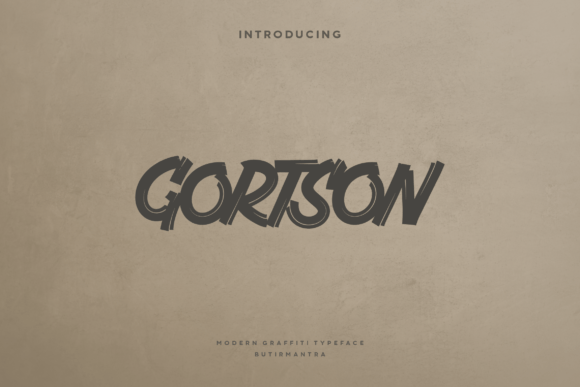
Unleash the captivating charm of Gortson, a script font family that dances off the page with its vibrant urban flair! Inspired by the raw energy of graffiti art, Gortson is a remarkable creation by garismantra, meticulously crafted to ignite your creative spark and elevate your designs to new heights.
Journey into the realm of urban aesthetics with Gortson, where bold lines intertwine with graceful curves, capturing the essence of street art and bringing a touch of rebellion to your creative endeavors. Whether you seek to craft eye-catching posters, captivating logos, or stunning social media graphics, Gortson is your ultimate companion.
With its innate ability to inject personality and edginess into any project, Gortson is the perfect choice for those seeking to make a lasting impression. Its urban-inspired design adds a touch of authenticity and grit, while its handwritten style exudes a sense of spontaneity and creativity.
Transform your designs into works of art with Gortson, the font that breathes life into your words. Its dynamic character dances across the page, capturing attention and leaving an indelible mark on the minds of your audience. Embrace the power of urban expression and let Gortson be your creative muse.